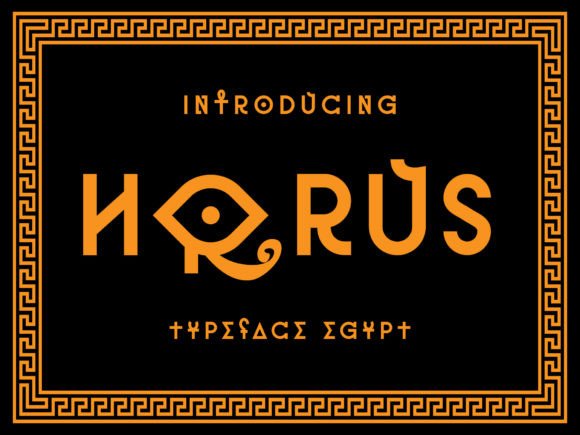
Behold the grandeur of Horus Font, a display font that emanates the mystique of ancient Egypt. This extraordinary creation, brought to life by the talented artnivora.std, draws inspiration from the captivating hieroglyphs that adorn the walls of ancient temples and tombs.
Horus Font is not merely a collection of letters; it's a gateway to a forgotten era, a vessel through which you can channel the power and wisdom of the pharaohs. Its bold, chiseled strokes evoke a sense of strength and regality, while its intricate details hint at the hidden knowledge and secrets of a civilization long gone.
With Horus Font at your disposal, you possess the key to unlocking a world of creative possibilities. Picture your designs adorned with the enigmatic beauty of hieroglyphs, your words transformed into artifacts that speak of ancient tales and legends. Whether you're crafting logos, posters, or any other visual masterpiece, Horus Font will elevate your work to new heights of sophistication and intrigue.
Step into the realm of the pharaohs, where every stroke of your pen or click of your mouse carries the weight of history. Horus Font is your passport to a world of timeless elegance and boundless creativity. Embrace its power and unleash your imagination upon a canvas of greatness.